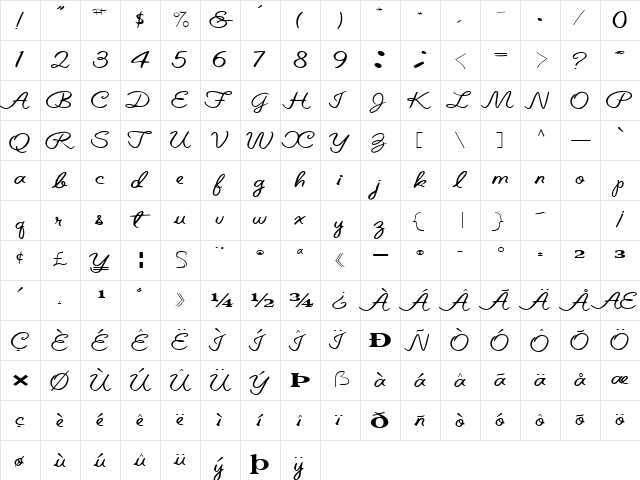
BelindaType67 Regular
Design Context for BelindaType67 Typeface
BelindaType67 takes a measured approach to typography — its balanced proportions and neutral character make it a reliable workhorse for both digital and print work.